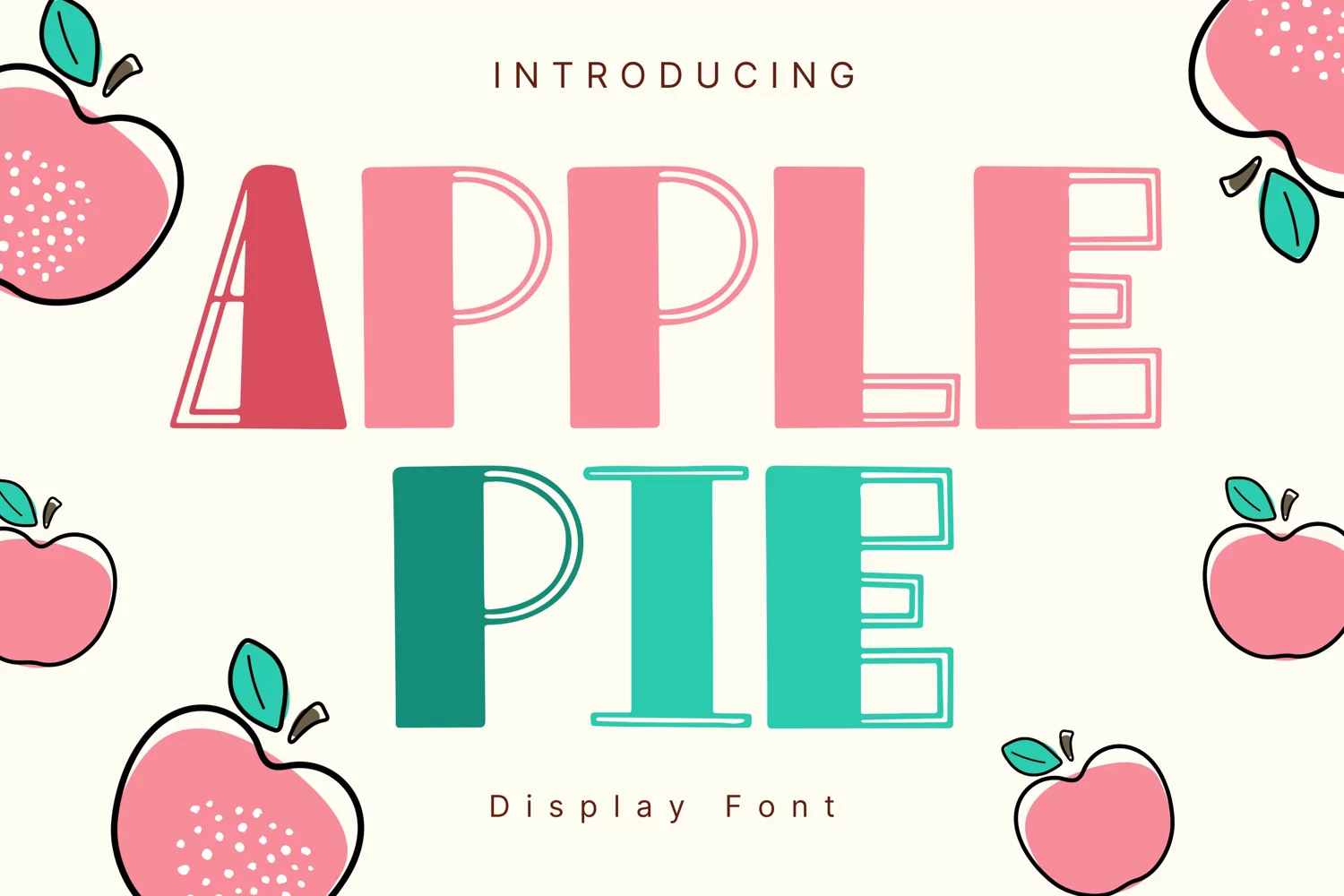
Apple Pie Style
ApplePie
Apple Pie Style is a whimsical and clean handwritten font. It can easily be matched to an incredibly large set of projects, so add it to your creative ideas and notice how it makes them stand out!